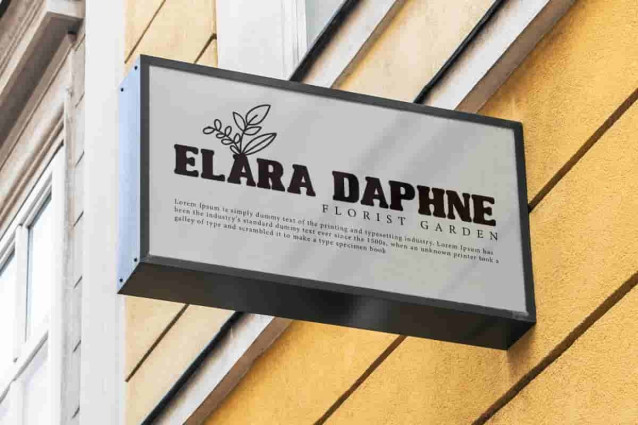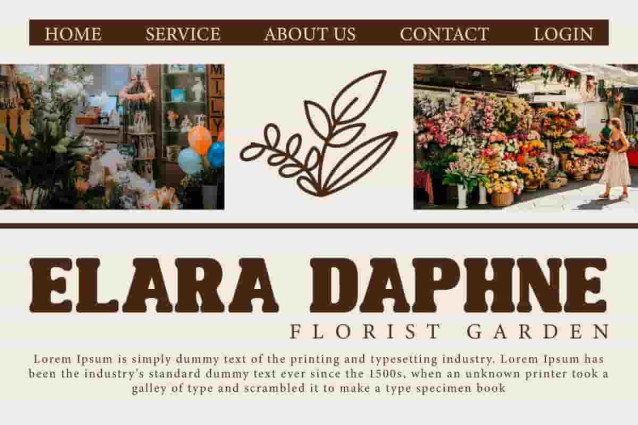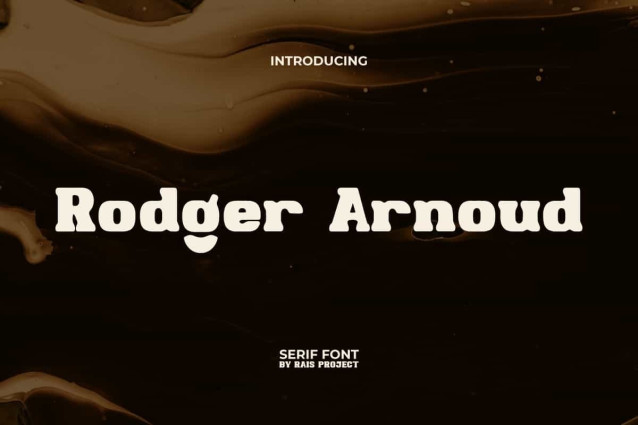
Rodger Arnoud Font
Rodger Arnoud Font is a fun adorable but classic bold and stylish Serif font that have vintage vibe by RaisProject. This serif font has thick characters with rounded edges to making it attractive. It will look good on invitation, stationery, poster, custom design, product packaging, quotes, signage, brand image, advertisement, label, marketing material, website page, and more